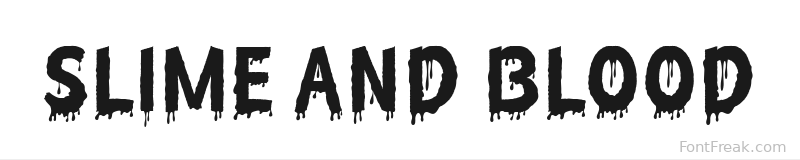
Slime and Blood
Slime and Blood is a captivating display font designed by Misti Hammers, characterized by its unique and striking aesthetic. This decorative typeface features bold, dripping letterforms that evoke a sense of playfulness and horror simultaneously. Its strokes vary in weight, with thicker sections creating a sense of depth, while the dripping effect adds an intriguing visual texture. The spacing is tight, enhancing the font's dramatic flair, making it perfect for eye-catching headlines and titles.
This font is particularly well-suited for a variety of creative projects, including movie posters that aim to grab attention and evoke strong emotions. Its whimsical yet eerie vibe makes it an excellent choice for Halloween-themed events or horror film promotions. Additionally, the Slime and Blood font can be effectively utilized in graphic novels and comic book covers, where its stylistic elements can enhance the storytelling experience. Small business owners looking to create memorable branding for a quirky cafe or a themed restaurant will find this font to be a unique asset. Content creators can also leverage this font for social media graphics and promotional materials that aim to stand out in a crowded digital landscape.
Target audiences for the Slime and Blood font include graphic designers, small business owners, and content creators who value originality and visual impact in their work. This font stands out due to its distinctive combination of playful yet macabre elements, making it a perfect fit for projects that require a touch of the unconventional. With its unique character and creative potential, the Slime and Blood font is available for free download, inviting users to explore its versatility and make their projects come alive.